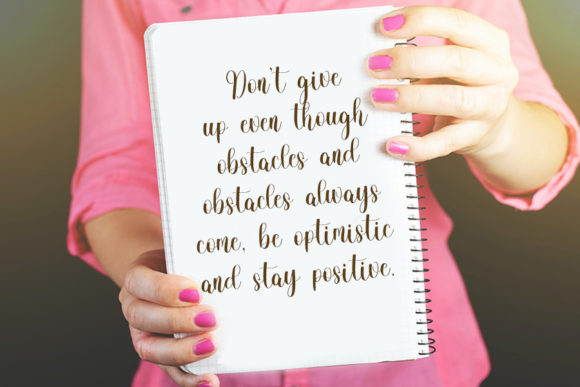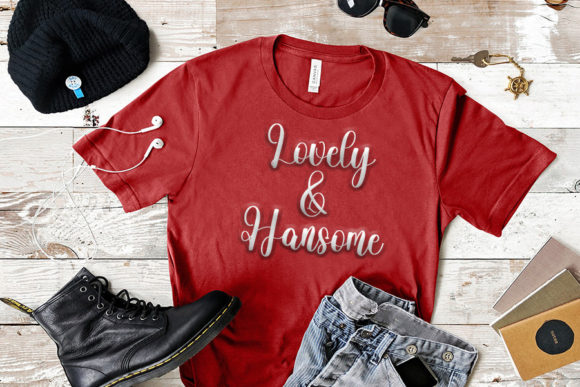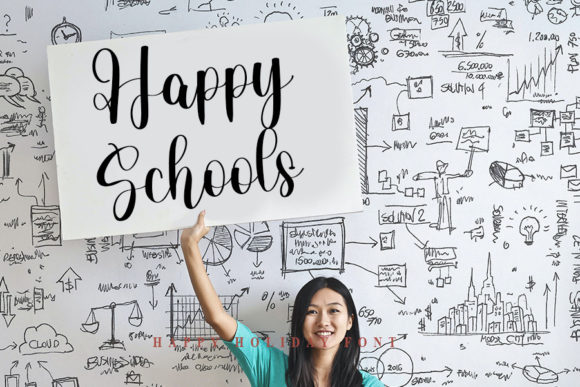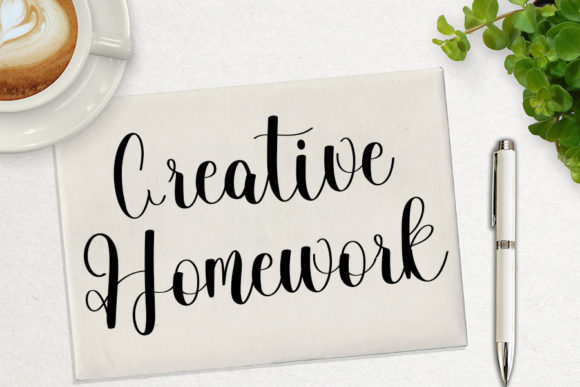
Introduction to Kalimat Signature Font
Have you ever been working on a creative project, and the right font just eludes you? You envision a romantic, handwritten script that perfectly captures the essence of your design, but it seems like an unattainable dream. Well, we’ve got some good news for you – your search is over with the Kalimat Signature Font.
This enchanting handwritten font is a game-changer for designers, offering a wide range of applications from greeting cards to headlines. With its high quality design and transparent background, it’s guaranteed to add a touch of elegance to your next project. Whether you’re working on a free download or a paid design resource, the Kalimat Signature Font is sure to impress.
As a valuable addition to any designer’s toolkit, the Kalimat Signature Font is a must-have for anyone looking to take their creative projects to the next level.
Key Features of Kalimat Signature Font
- Unique, hand-drawn design with intricate details, perfect for creative projects and personal branding.
- High-quality font with a transparent background, ideal for use on various design elements and backgrounds.
- Comes in a single weight, making it easy to use across various design projects and applications.
- Designed with a modern and elegant aesthetic, suitable for use in logos, graphics, and other design elements.
Honest Review: Kalimat Signature Font
I recently had the chance to work with the Kalimat Signature Font, and I must say it’s a high quality design resource that I’d love to share with the community. The font is perfect for any creative project that requires a touch of elegance and sophistication.
Here are some of the things that I love about this font:
- ✨ The font’s transparent background makes it incredibly versatile and easy to use.
- ✨ The font’s modern design is perfect for any project that requires a touch of creativity and flair.
However, there are a few limitations that I’d like to mention:
- ⚠️ The font may not be suitable for projects that require a bold, sans-serif font.
- ⚠️ Some users may find the font’s ligatures to be a bit too ornate.
Overall, I’m really impressed with the Kalimat Signature Font. It’s a high quality design resource that’s perfect for any creative project. I would highly recommend it to designers looking for a unique and elegant font.
Common Use Cases for Kalimat Signature Font
The Kalimat Signature Font is suitable for a wide range of design projects, including logos, business cards, brochures, and presentations. Its high-quality design and transparent background make it a versatile resource for designers and non-designers alike.